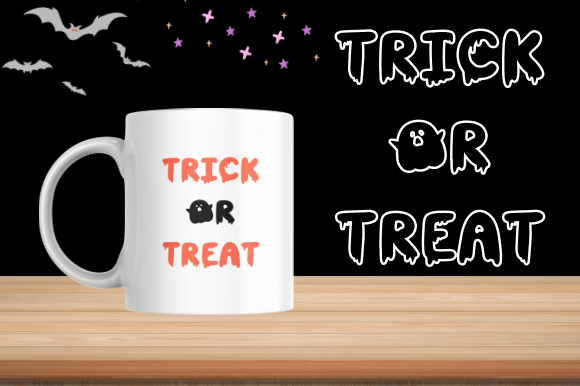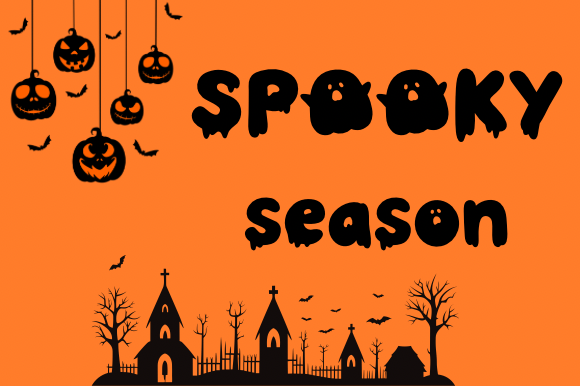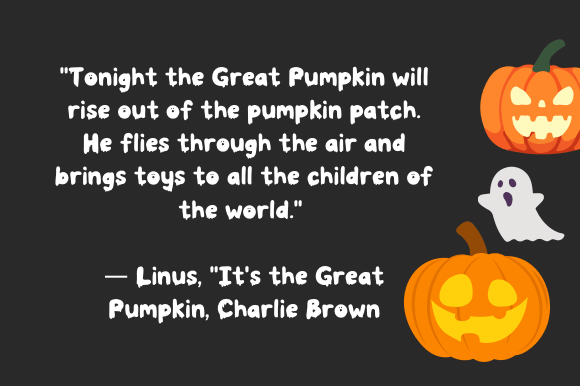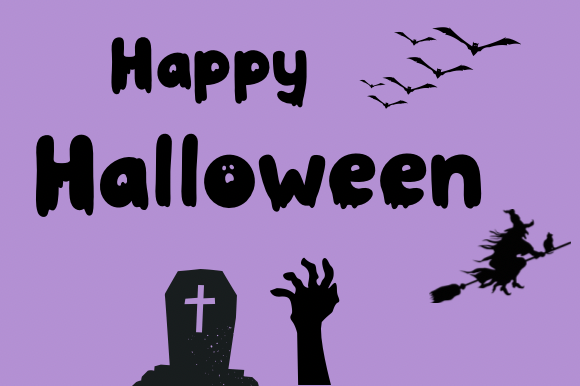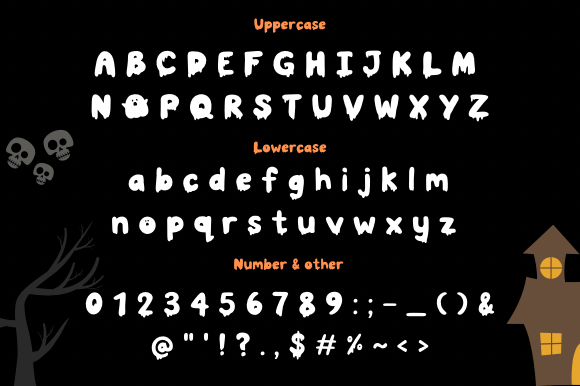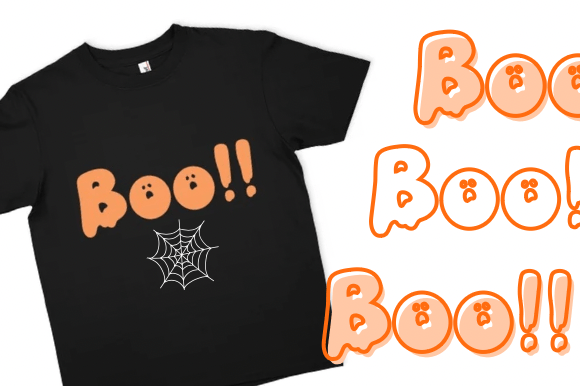
Introduction to Halloween Night Font
As the sun sets on a crisp autumn evening, you’re browsing through design inspiration, and suddenly, a spark of creativity hits you. You envision a spooky yet adorable design for your next creative project, one that will leave a lasting impression on your audience. The key to unlocking this vision lies in the perfect font – a font that captures the essence of Halloween without being too spooky or too sweet.
Enter the Halloween Night Font, a delightful design resource that’s as versatile as it is charming. With its playful twists and turns, this font is sure to add a touch of high-quality whimsy to any project. Whether you’re working on a graphic design, a digital illustration, or a creative project, the Halloween Night Font is a valuable asset that’s sure to elevate your work.
Halloween Night Font
- High-quality design resource ideal for creative projects and festive designs.
- Designed with a spooky and mysterious aesthetic, perfect for Halloween-themed designs.
Honest Review: Halloween Night Font
I recently came across the Halloween Night Font, a free download that caught my attention. This font is perfect for a creative project that requires a spooky and eerie vibe. The high quality of the font is immediately noticeable, making it a great addition to any design.
- What works well: ✨ The font has a unique and creative design, with intricate details that make it stand out. The transparent background allows for easy placement on any image or design.
- ⚠️ The font may not be suitable for all types of designs, as it’s quite bold and eye-catching. It’s best used for creative projects that require a spooky atmosphere.
Overall, I’m impressed with the Halloween Night Font. It’s a great design resource that can add a unique touch to any creative project. Just be mindful of the limitations and use it in the right context.
Halloween Night Font
The Halloween Night Font is a high-quality design resource perfect for your creative project. This free download is ideal for adding a spooky touch to your designs. With a transparent background, you can easily integrate it into your project.
The Halloween Night Font is perfect for a variety of designs, including:
- Halloween-themed invitations and party decorations
- Spooky social media graphics and memes
- Halloween-themed merchandise and apparel
- Creepy craft projects and DIY designs